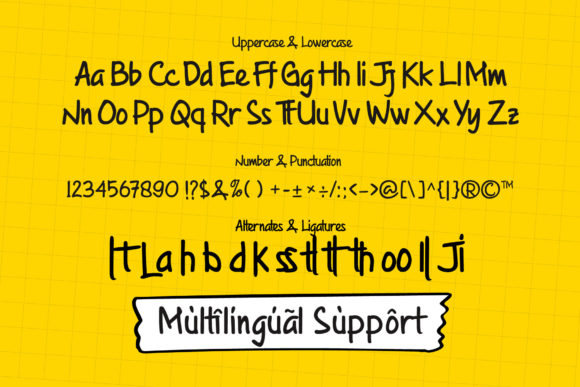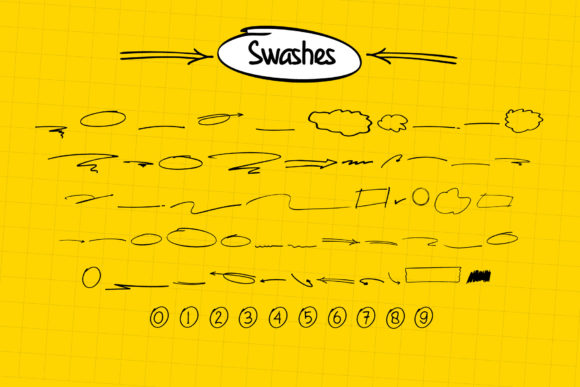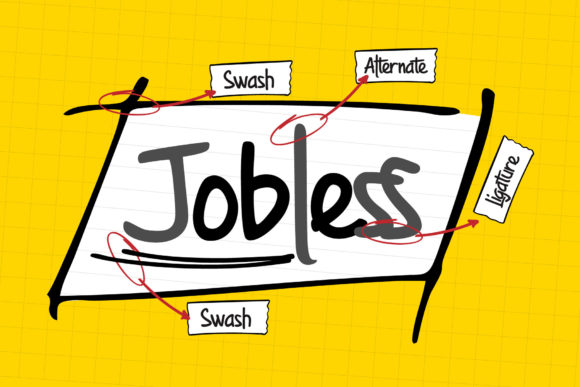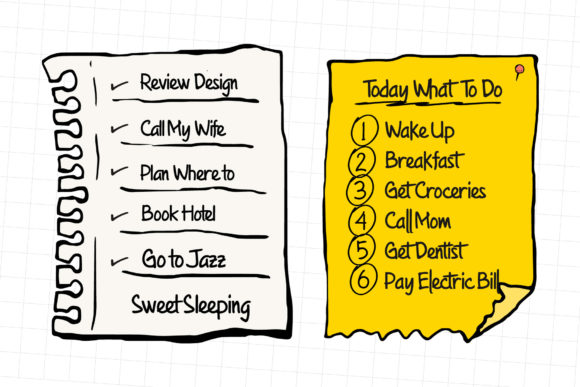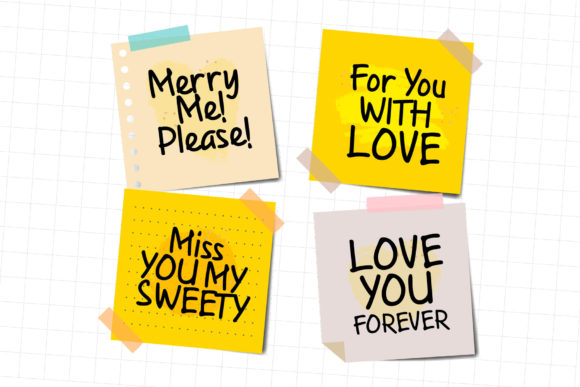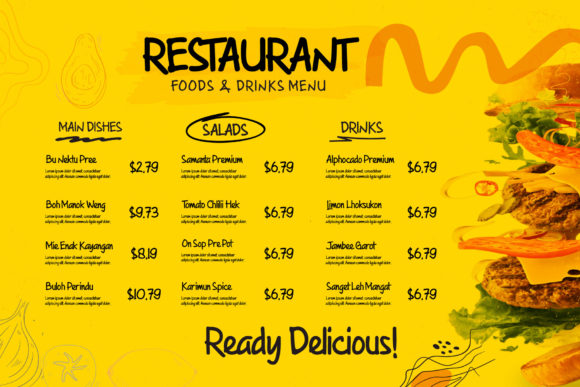
Introducing By Note Font: The Perfect Handwritten Style for Your Creative Projects
Are you a designer, crafter, or DIY enthusiast looking for a unique and versatile font to elevate your creative projects? Look no further than By Note Font, a simple and clean handwritten font that is sure to impress. In this article, we’ll dive into the features and benefits of By Note Font, and explore how it can be used to add a personal touch to a wide range of projects.
The Story Behind By Note Font
By Note Font is a carefully crafted handwritten font that was created with a natural and unique style in mind. The font’s design is inspired by the imperfections and quirks of handwriting, giving it a warm and approachable feel that is perfect for a variety of applications. Whether you’re looking to add a personal touch to your digital notes, create eye-catching quotes designs, or craft a stunning book cover, By Note Font is the perfect choice.
Key Features of By Note Font
So, what makes By Note Font so special? Here are just a few of its key features:
- Simple and Clean Design: By Note Font features a simple and clean design that is easy to read and works well in a variety of contexts.
- Natural and Unique Style: The font’s natural and unique style gives it a warm and approachable feel that is perfect for adding a personal touch to your projects.
- Versatile: By Note Font is incredibly versatile, and can be used for everything from digital notes and quotes designs to book covers, logotypes, posters, food menus, t-shirts, scrapbooking, comic illustrations, magazine titles, kids projects, and more!
Uses for By Note Font
So, how can you use By Note Font in your creative projects? Here are just a few ideas to get you started:
- Digital Notes: Add a personal touch to your digital notes with By Note Font. Perfect for journaling, to-do lists, and more.
- Quotes Designs: Create stunning quotes designs with By Note Font. Great for social media graphics, posters, and more.
- Book Covers: Use By Note Font to create eye-catching book covers that are sure to stand out.
- Logotypes: Create a unique and memorable logotype for your brand with By Note Font.
- Posters: Design stunning posters with By Note Font. Perfect for advertising, events, and more.
- Food Menus: Add a personal touch to your food menu with By Note Font. Great for restaurants, cafes, and more.
- T-Shirts: Create custom t-shirts with By Note Font. Perfect for DIY enthusiasts and small businesses.
- Scrapbooking: Use By Note Font to add a personal touch to your scrapbooking projects.
- Comic Illustrations: Add a unique and playful touch to your comic illustrations with By Note Font.
- Magazine Titles: Create eye-catching magazine titles with By Note Font.
- Kids Projects: Use By Note Font to create fun and engaging projects for kids.
Why Choose By Note Font?
So, why should you choose By Note Font for your creative projects? Here are just a few reasons:
- Unique and Versatile: By Note Font is a unique and versatile font that can be used in a wide range of applications.
- Easy to Read: The font’s simple and clean design makes it easy to read, even at small sizes.
- High-Quality Design: By Note Font is a high-quality font that is designed to look great in any context.
| Font Name | By Note Font |
| Author | afkaristudio |